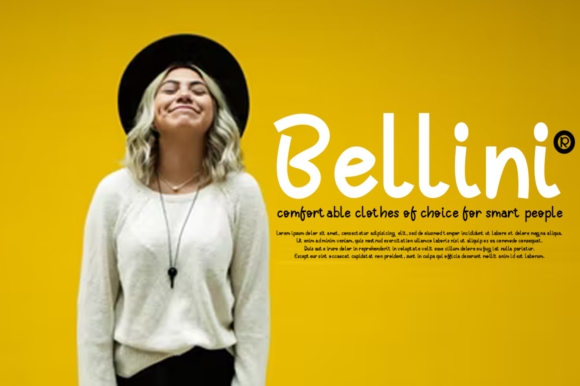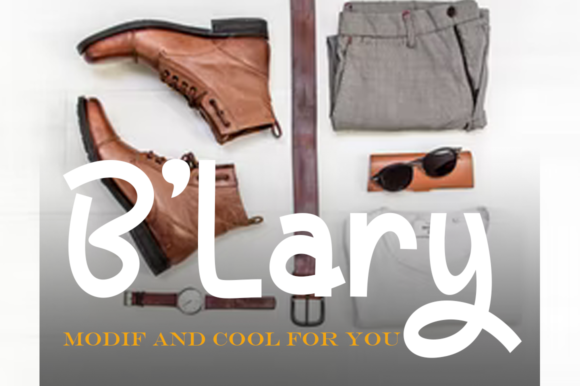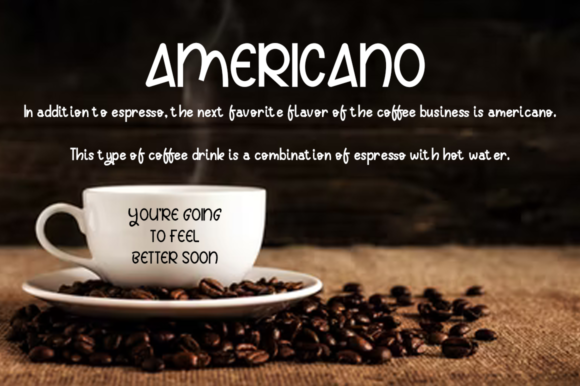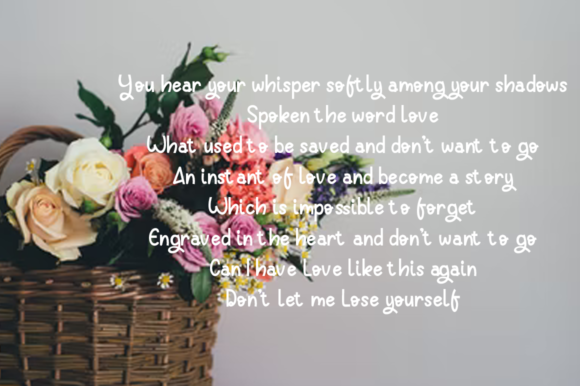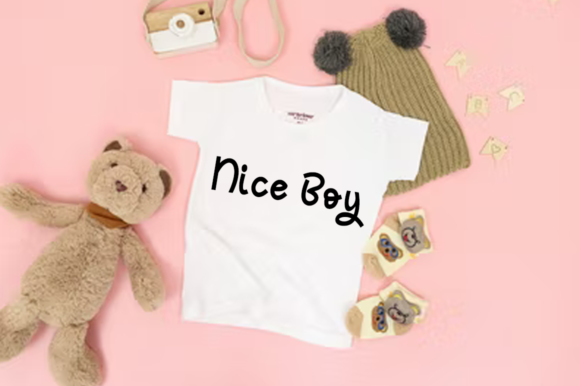
Introduction to Gachua Font
As a designer, have you ever found yourself staring at a blank page, desperate for the perfect font to bring your creative project to life? I know I have. That’s why I’m excited to introduce you to the lovely Gachua Font – a handwritten masterpiece that’s sure to add a touch of warmth and personality to your designs.
Gachua Font is more than just a pretty face; it’s a valuable design resource that can elevate your work and make it stand out from the crowd. With its unique characters and friendly feel, this font is perfect for adding a casual modern calligraphy touch to your designs. Whether you’re working on a branding project or creating a social media graphic, Gachua Font is a high-quality choice that’s sure to impress.
Key Features of Gachua Font
- Features a unique, hand-drawn style with a transparent background, allowing for easy customization.
- Includes a wide range of characters, including letters, numbers, and symbols, making it ideal for various design applications.
- Suitable for a wide range of creative projects, including logos, typography, and graphic design.
Honest Review: Gachua Font
As a designer, I’m always on the lookout for high-quality design resources that can elevate my creative projects. Recently, I stumbled upon the Gachua Font, and I’m excited to share my honest review with you.
- ✨ High-quality design: The Gachua Font is a beautifully crafted font that exudes a sense of elegance and sophistication.
- ✨ Versatile: The font is incredibly versatile and can be used for a wide range of design projects, from logos to typography-heavy designs.
- ⚠️ Limited font styles: While the Gachua Font is a great addition to any design library, it’s worth noting that it only comes in a single style, which may limit its versatility in certain projects.
Overall, the Gachua Font is a solid addition to any design library. While it has some limitations, its high-quality design and free download make it an excellent resource for designers working on creative projects.
Gachua Font is commonly used in graphic design, digital art, and writing projects that require a high-quality, unique font. It’s also a great resource for designers who want to add a touch of elegance and sophistication to their designs.